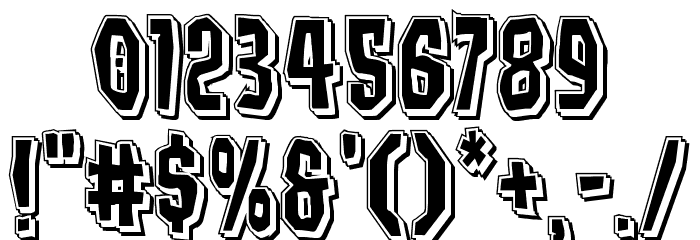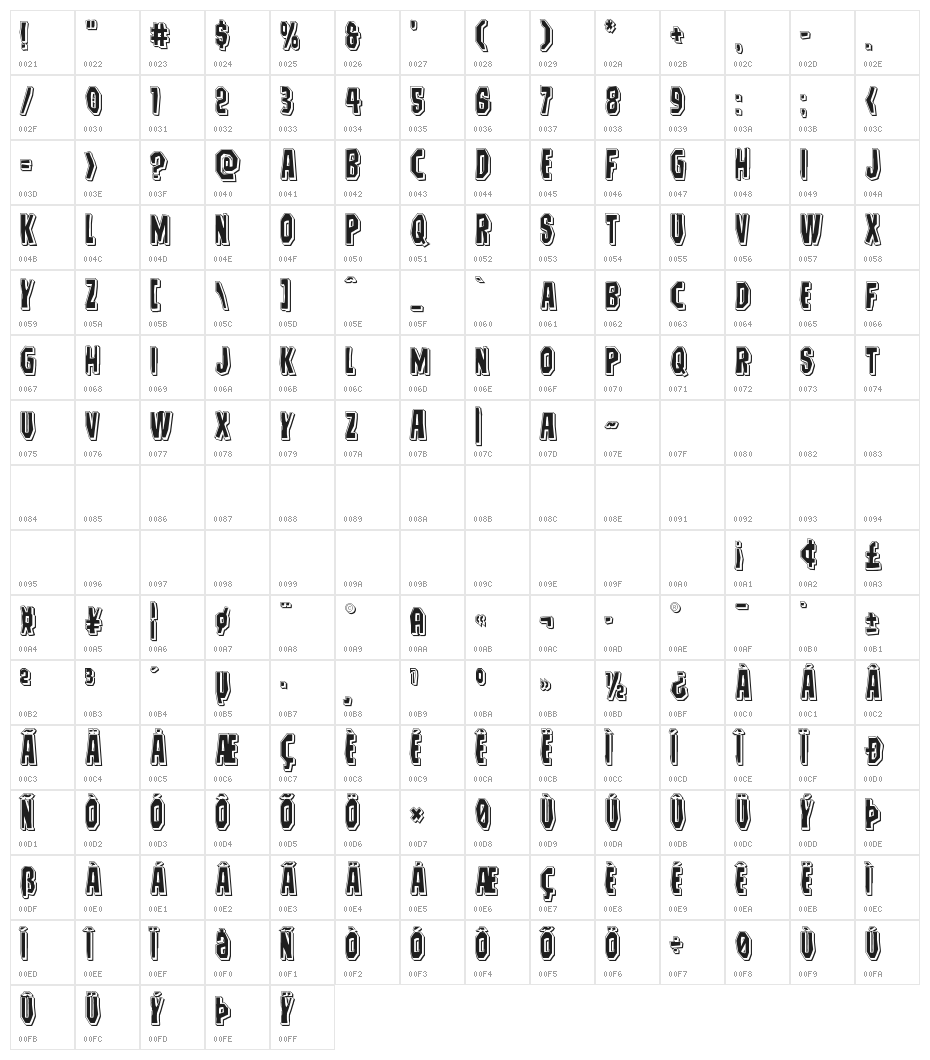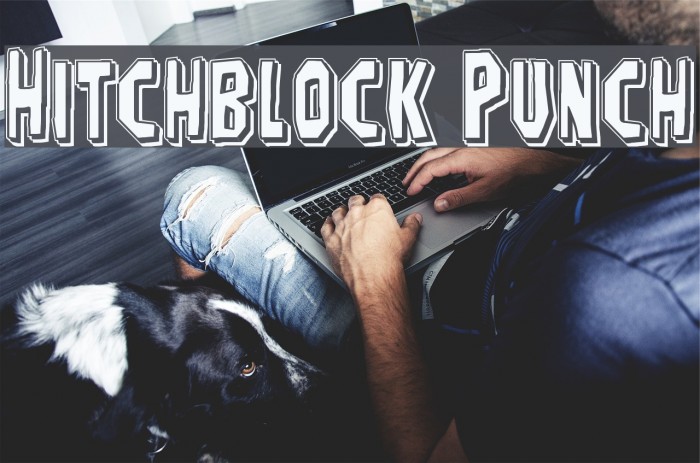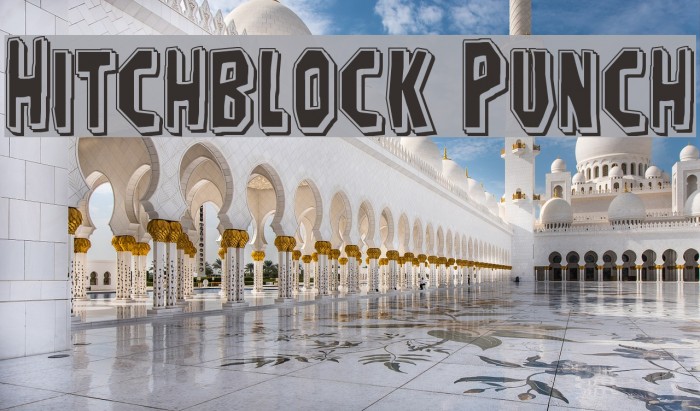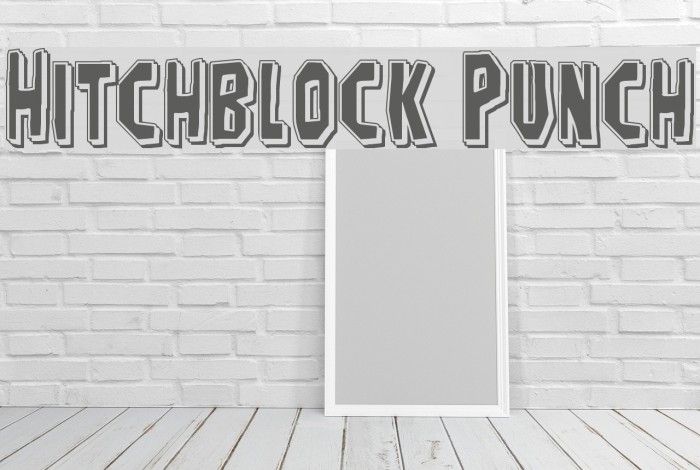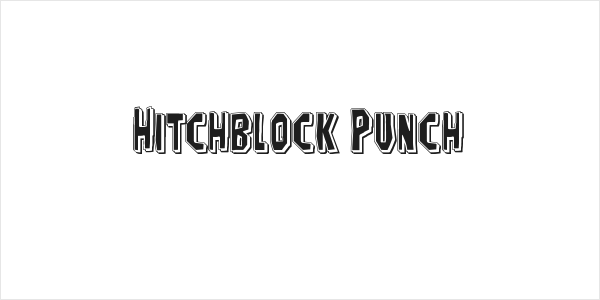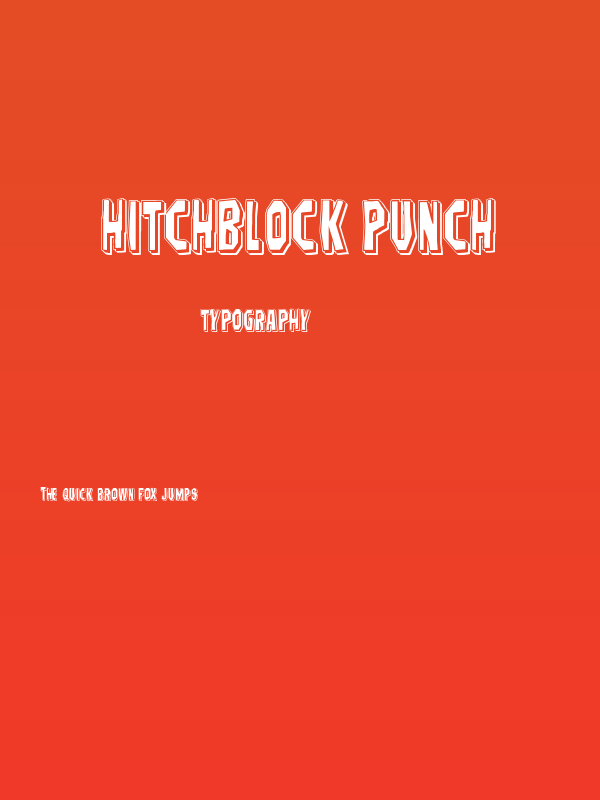
Hitchblock Punch Font
Hitchblock Punch Description
This font features a bold, impactful design with a three-dimensional effect created by its thick, shadowed outlines. The uppercase letters are robust and commanding, making them ideal for attention-grabbing headlines. The numerals and special characters maintain the same bold style, ensuring consistency across all text elements. The font's strong presence is enhanced by its high contrast between the thick strokes and the shadowed edges, giving it a dynamic and energetic feel.